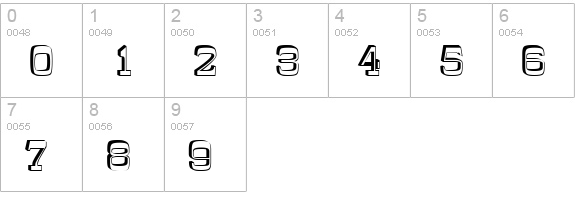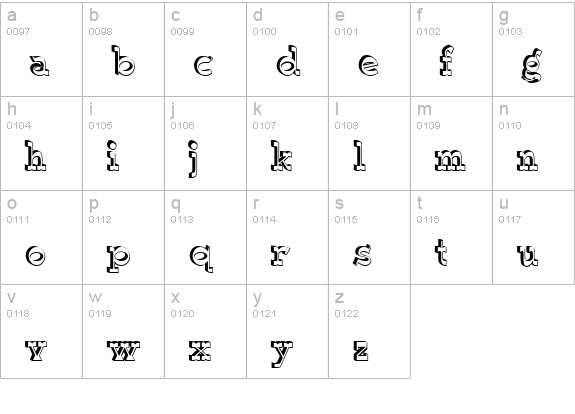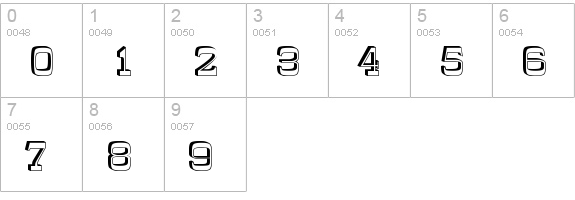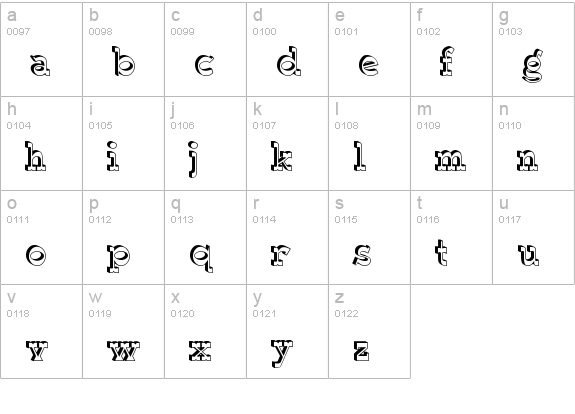
Hillbilly Font Details
The Hillbilly font exudes rustic charm and down-home appeal, perfect for adding a touch of country style to your designs. Its quirky and hand-drawn appearance captures the essence of a laid-back, Southern vibe. With its unique letterforms and playful character, the Hillbilly font is sure to stand out in any project, from invitations to posters to branding. Best of all, the Hillbilly font is available for free download at FontsMarket.com. Now you can easily add a touch of Southern hospitality to your designs without breaking the bank. Download the Hillbilly font today and let your creativity run wild with its charming and distinctive aesthetic.